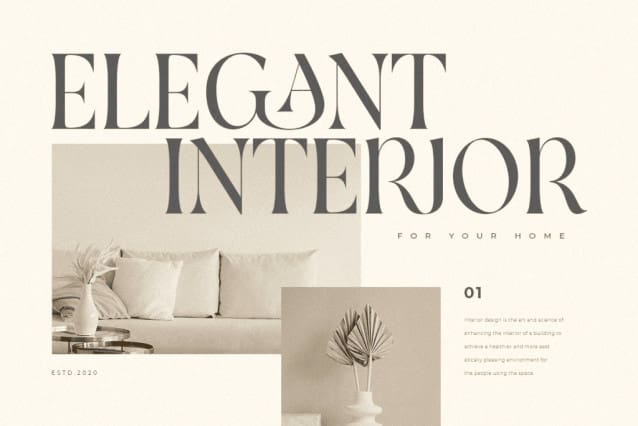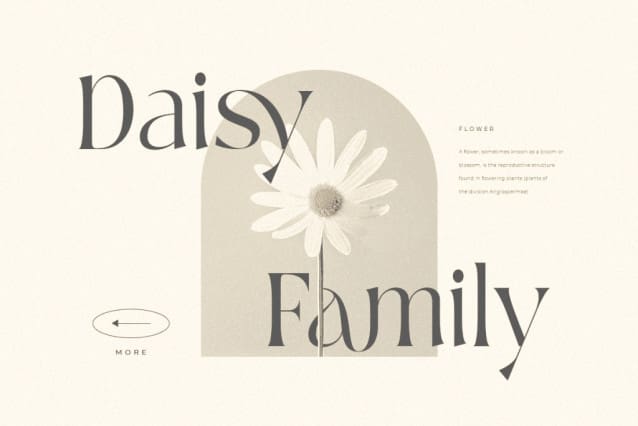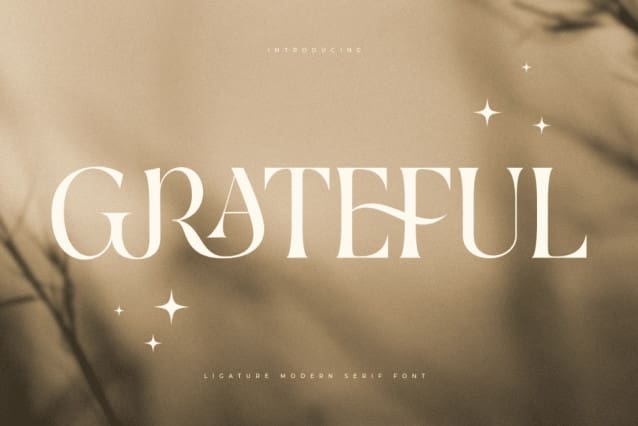
Grateful Font
Grateful Font is a Ligature Modern Serif Font. A new font that we created special for branding needs, with unique characters and awesome alternative characters are ready to add value of your brand. It so nice to leverage designer or product owner that need solutions to make their design look more beauty and modern. And specially for Salute font, We prepared any swash and any alternate characters to help you create unlimited variations for your creative needs.